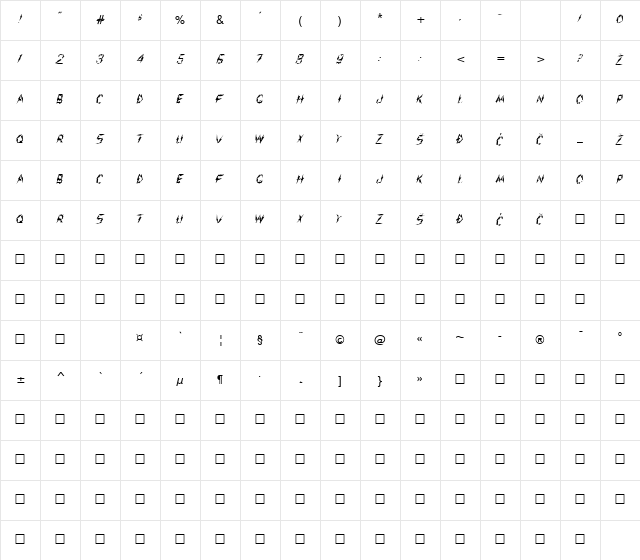
Complete AarcoverPlain Regular glyph index. Displaying only characters natively supported by AarcoverPlain Regular font.
AarcoverPlain is a composed and adaptable typeface that performs quietly and consistently across a wide range of design contexts.